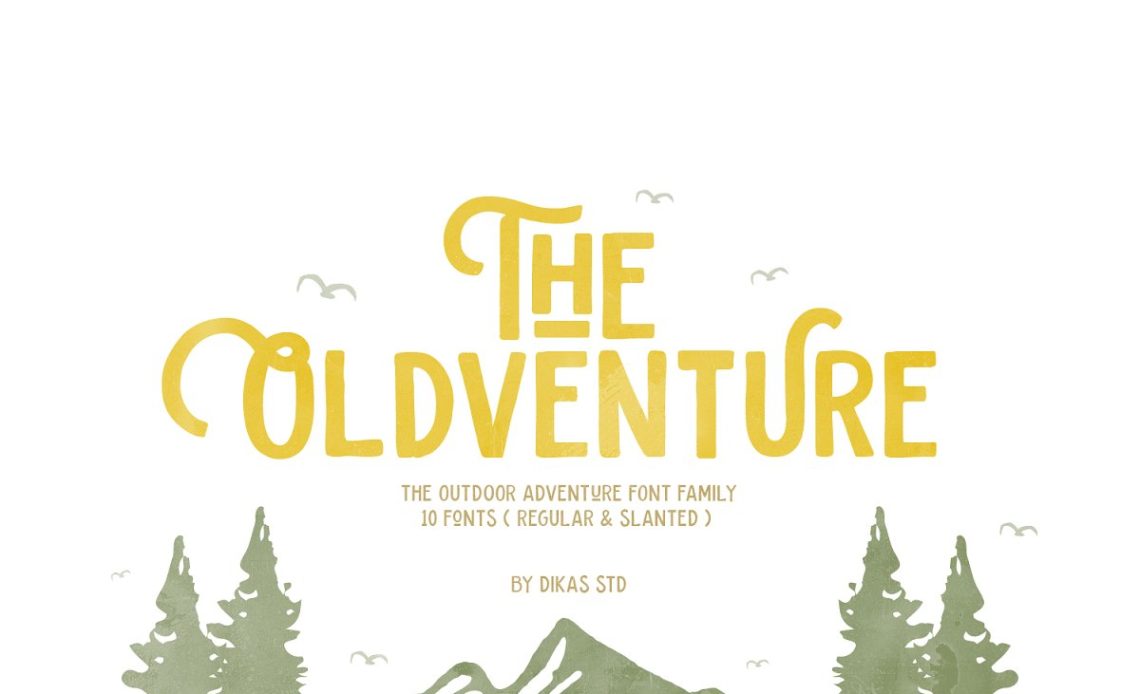
Introducing The Oldventure - 10 Fonts, the ultimate choice for lettering tattoos! Created by the talented Andika Setiawan, this sans serif font family is specifically designed for designers who crave a vintage hand-drawn aesthetic.
With a diverse range of styles, including Extra Light, Light, Thin, Regular, and Medium, The Oldventure is your go-to font for all your adventurous and outdoor design themes. Each style even comes with a slanted version, giving you endless possibilities to explore.
What sets The Oldventure apart is its organic character. Crafted by hand, every letter boasts a unique and distinct stroke, adding an authentic touch to your projects. Plus, this font comes with alternate characters, stylistic sets 01 & 02, swashes, and ligatures, allowing you to truly customize and elevate your designs.
Not only does The Oldventure offer stunning visuals, but it also provides excellent functionality. This font includes uppercase and lowercase letters, punctuation and numbers, and supports multiple languages. No matter where your audience is, The Oldventure will speak their language.